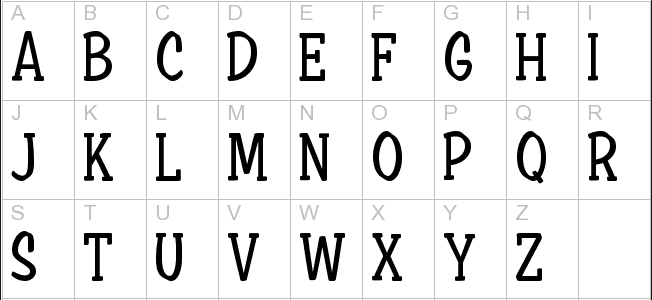
ED Brush Font
We are discussing brush fonts for photography and web design. Fonts play a crucial role in all forms of graphic and web design as they convey information. Typography and visual layout enhance the appeal and understanding of the product.
Ed brush font is brushed font style and is used in web and photo designs. This typeface is in general utilized in snapshots initiatives. You can make use of it in posters, programs layout and flyers and so forth.